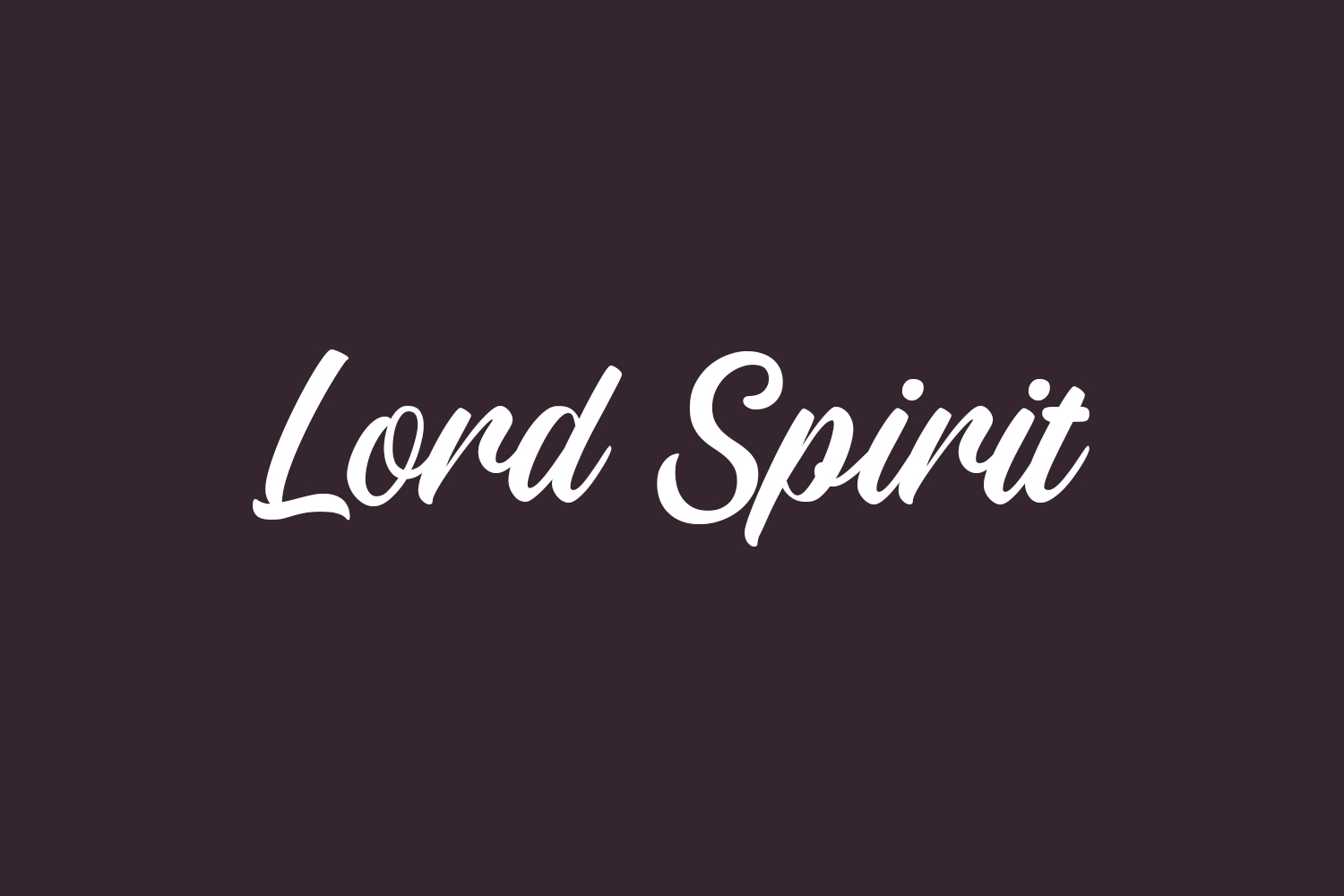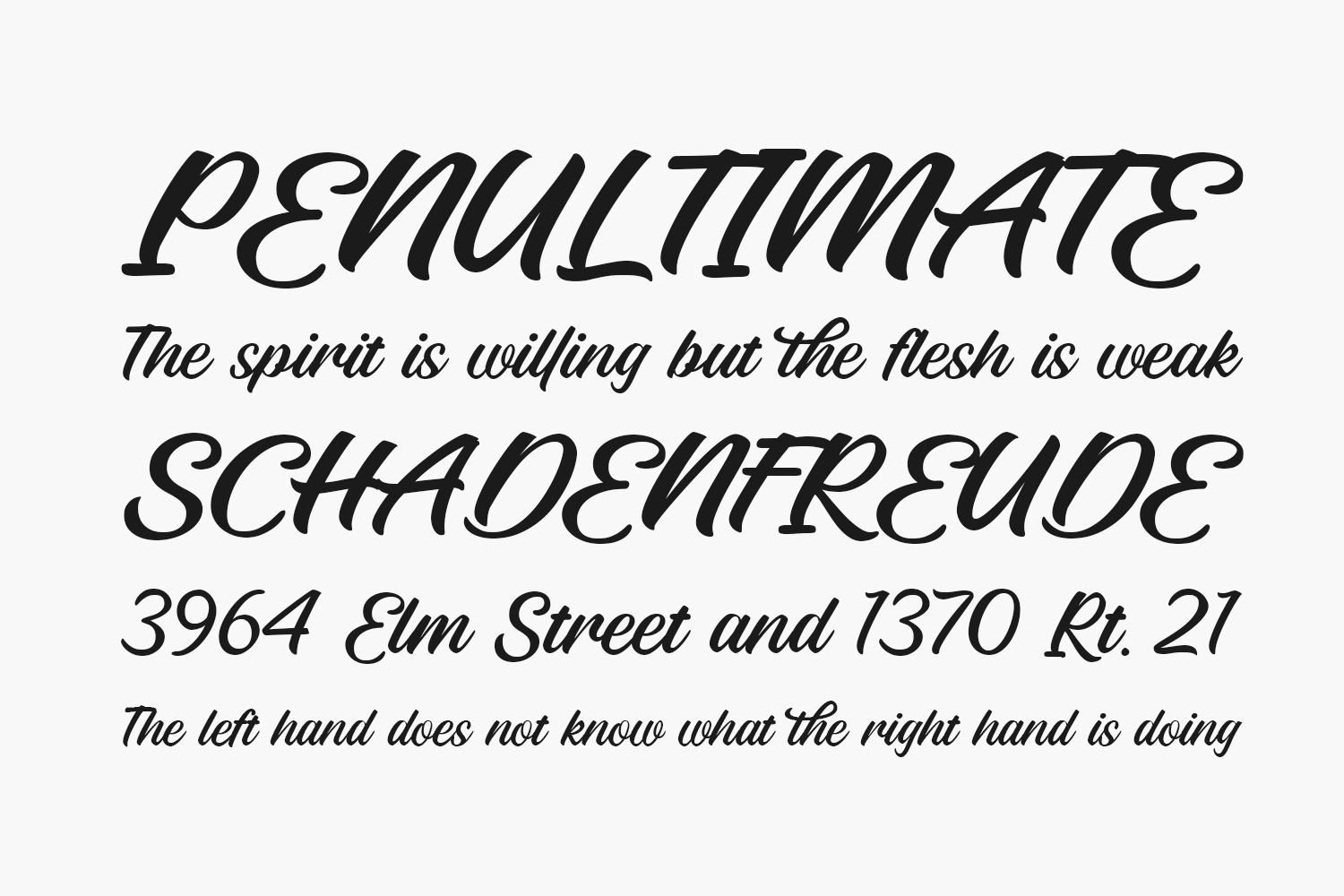
Lord Spirit Free Font, a bold and assertive brushed handwritten font, is the perfect choice for enhancing your branding, product packaging, invitations, quotes, t-shirts, labels, posters, and logos. Elevate your creative projects with the distinctive character of this font. Download the font for free if you need it for personal use or purchase the full version for commercial use.